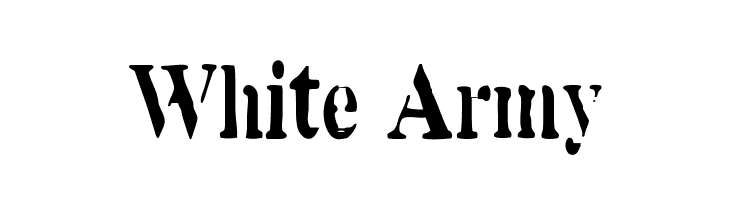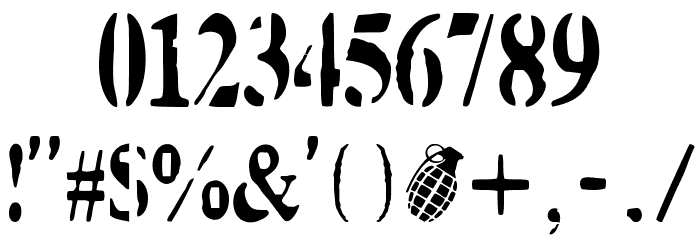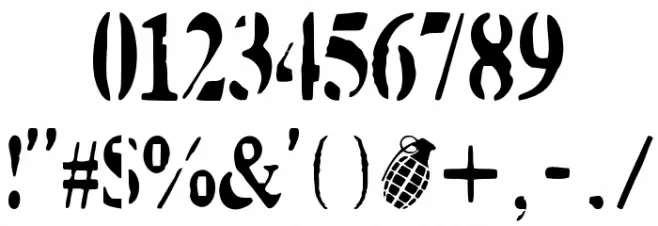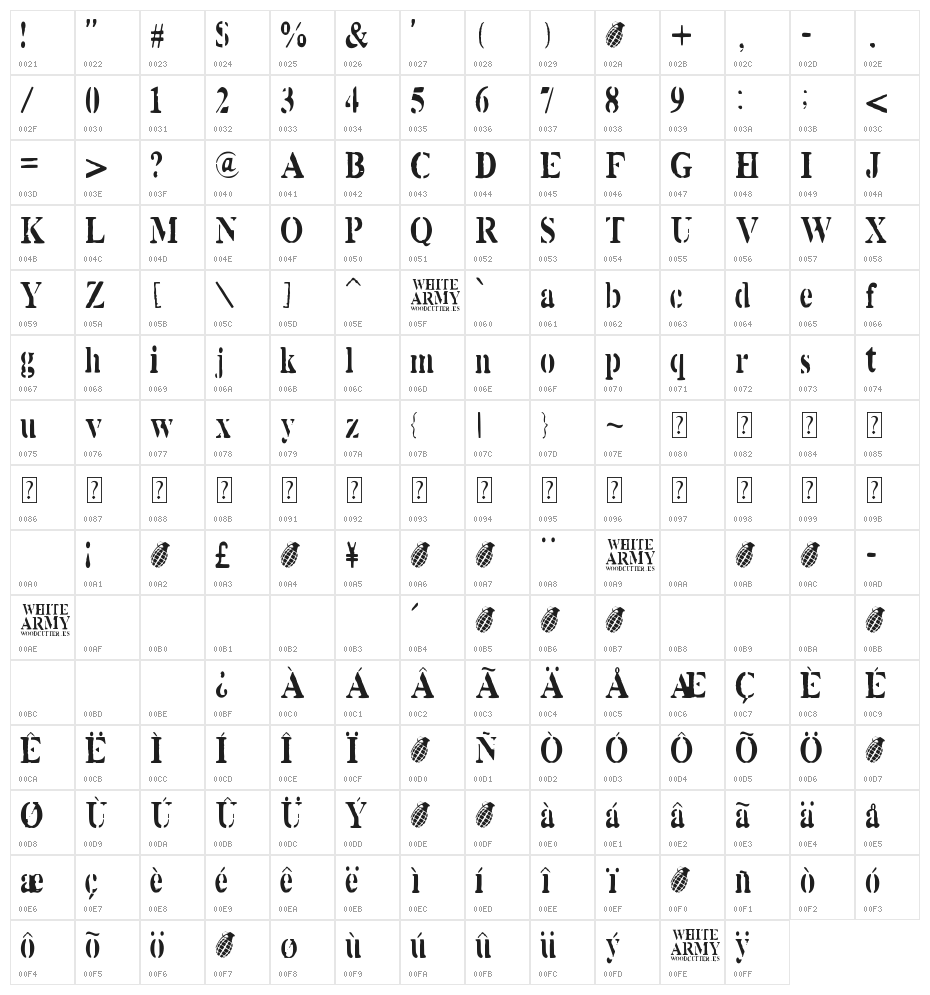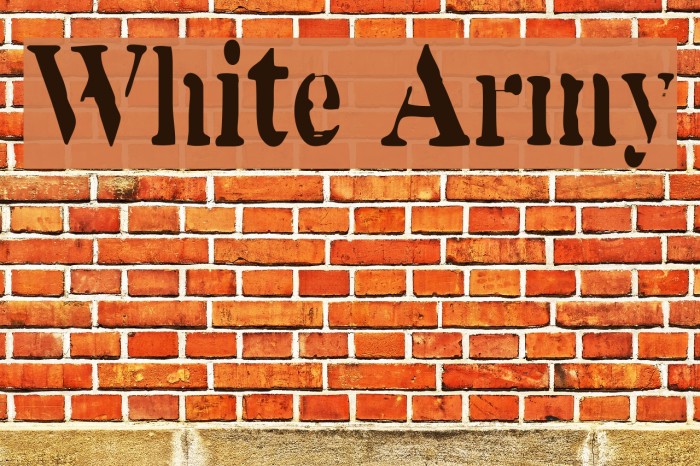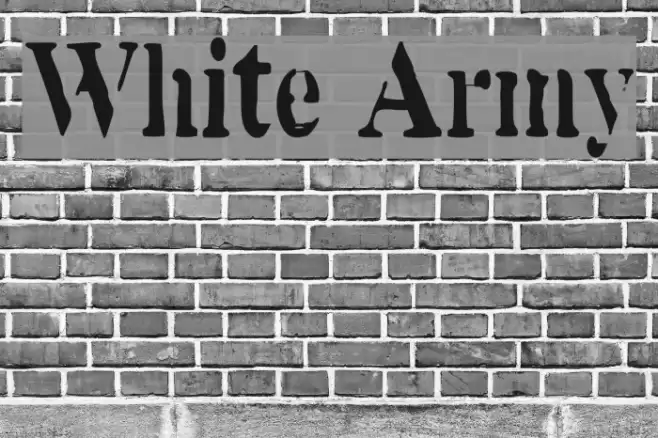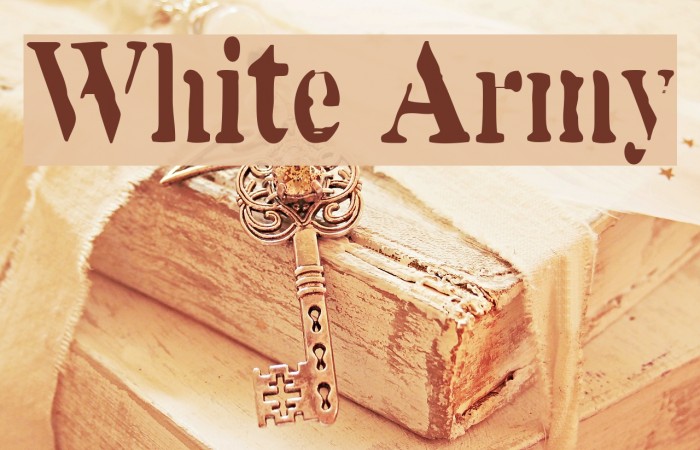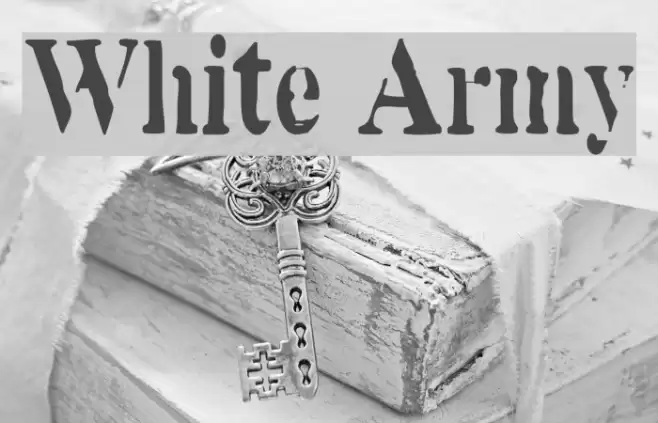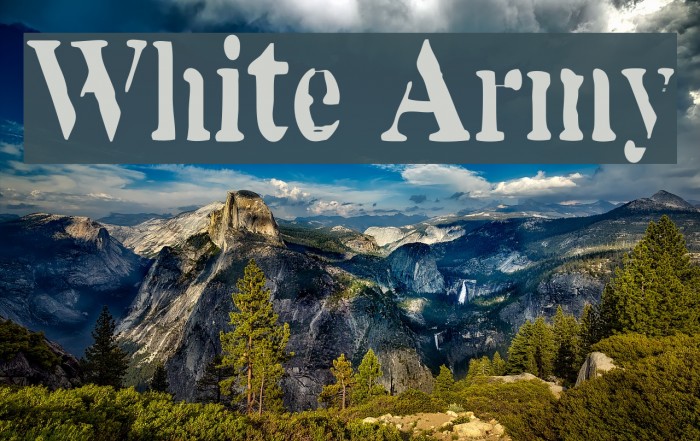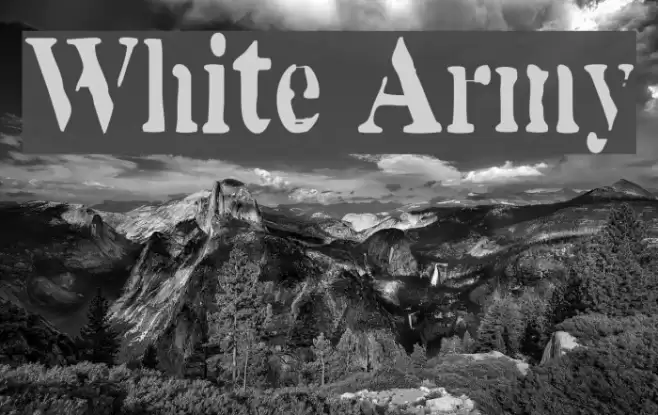
White Army Font
White Army Description
This font features a bold, stencil-like design with distinct cut-out sections that give it a rugged, military-inspired appearance. The uppercase and lowercase letters maintain a consistent style, with sharp edges and a strong presence. Numbers and special characters are equally bold, ensuring uniformity across all glyphs. The font's design is reminiscent of traditional military stencils, making it ideal for projects that require a strong, authoritative look. Its unique style is both functional and decorative, suitable for various creative applications.
| Proposed Projects | Ideal for military-themed designs, posters, logos, and branding that require a strong, authoritative presence. |